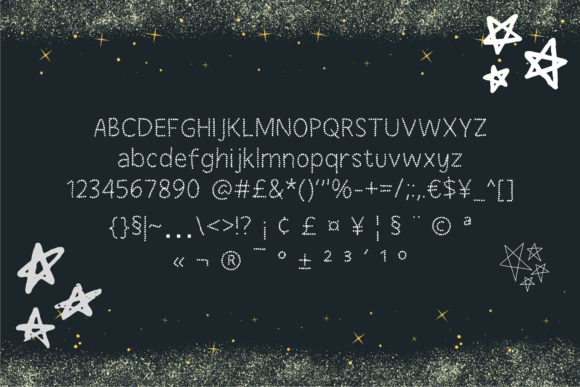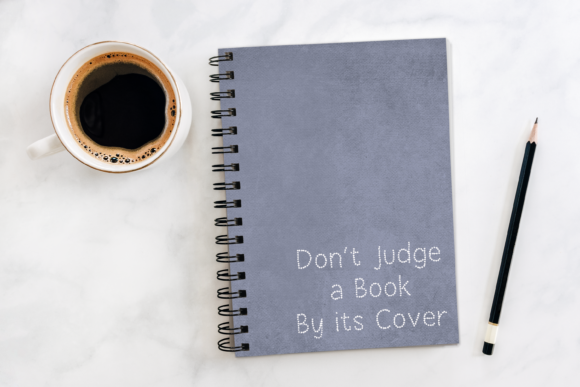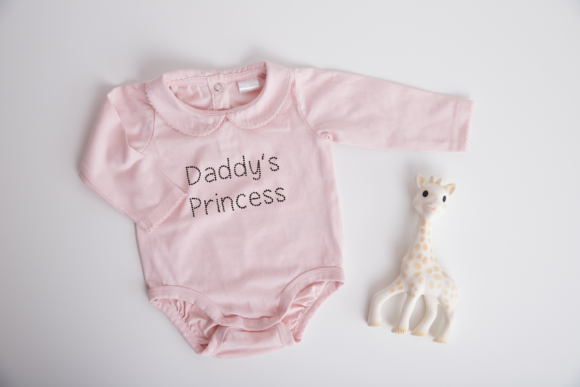
Alnair Star
About Alnair Star Font
Alnair Star is a cute and fancy decorative font. It will add an incredibly joyful touch to your designs. Add this beautiful fancy font to each of your creative ideas and notice how it makes them stand out!